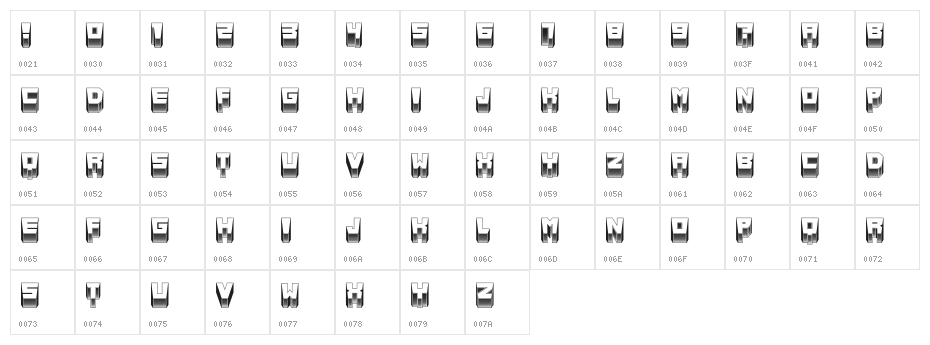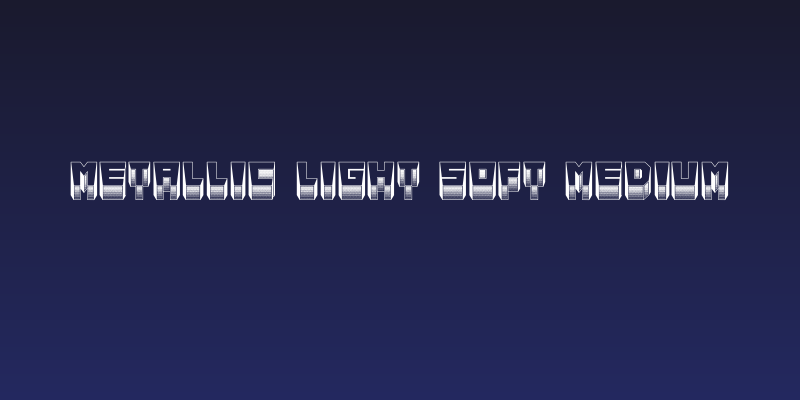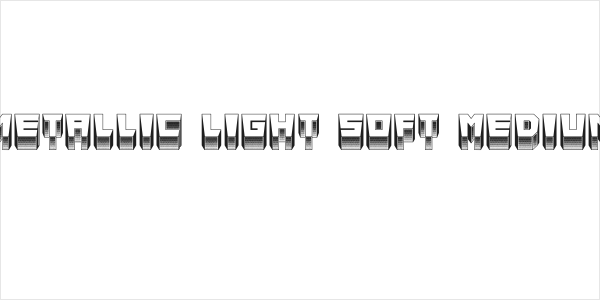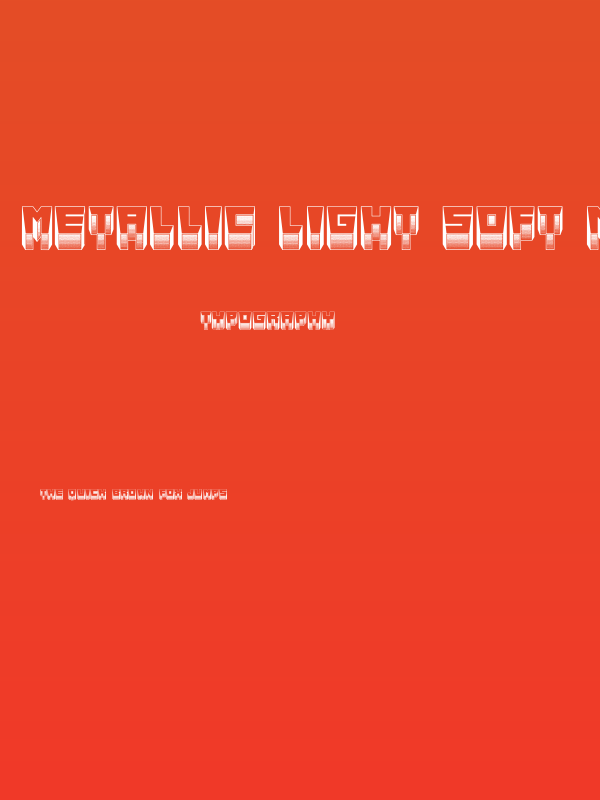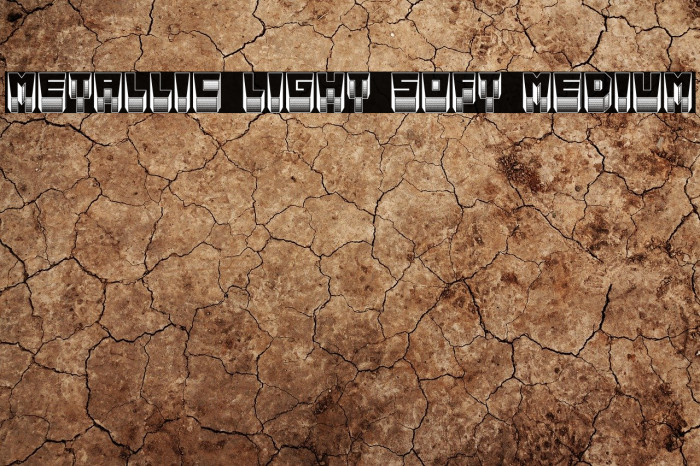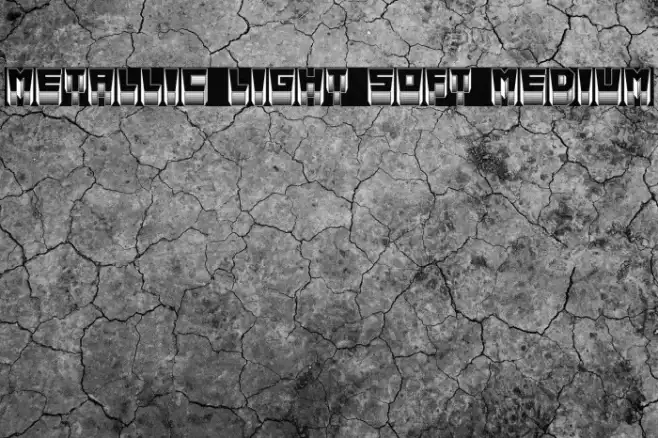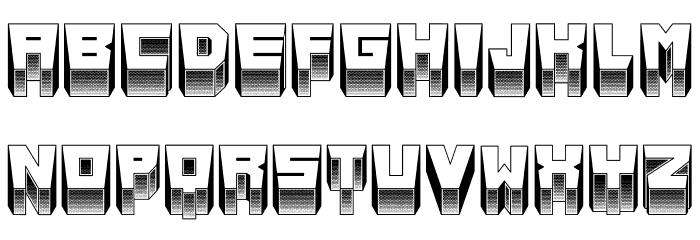
Metallic Light Soft Medium Font
Metallic Light Soft Medium Description
This font features a bold, three-dimensional design with a metallic appearance. The characters are blocky and robust, with a distinct shadow effect that gives them depth and a sense of solidity. The uppercase and lowercase letters maintain a consistent style, emphasizing a futuristic and industrial aesthetic. The numbers and special characters follow the same design principles, ensuring uniformity across all glyphs. The font's unique style makes it stand out, offering a visually striking option for various creative projects.